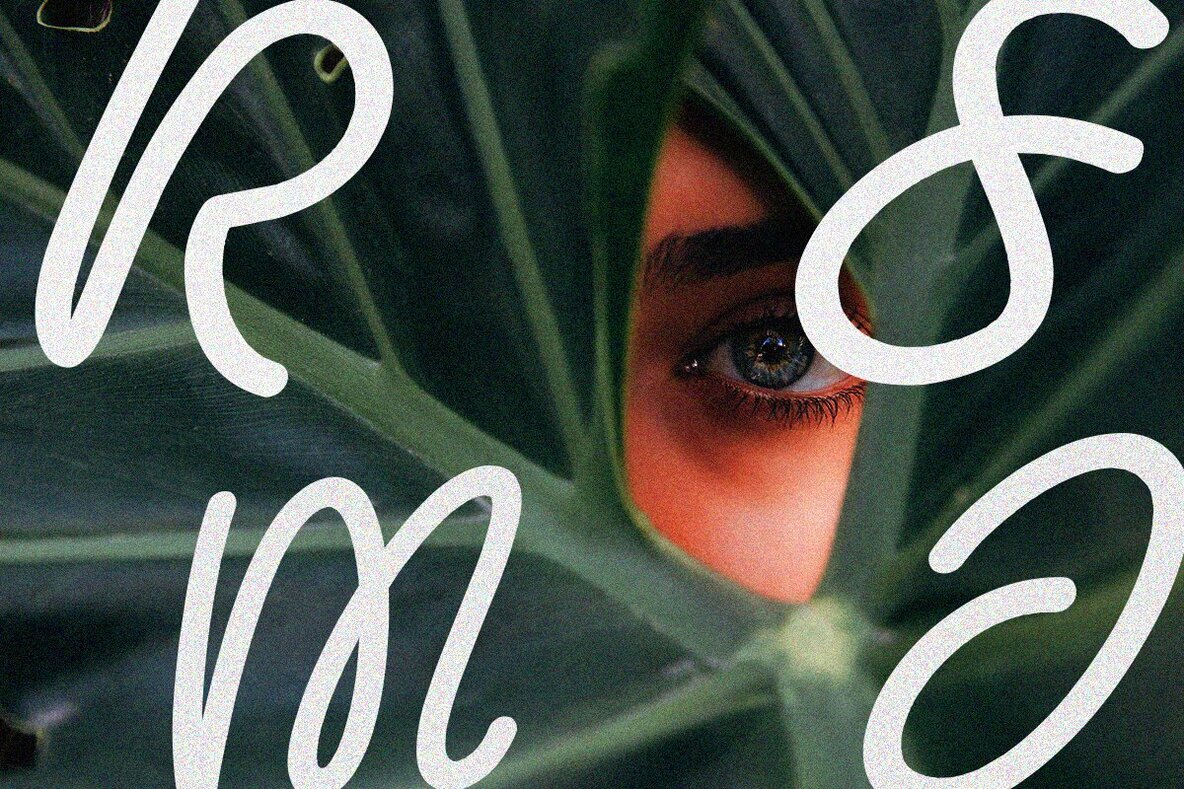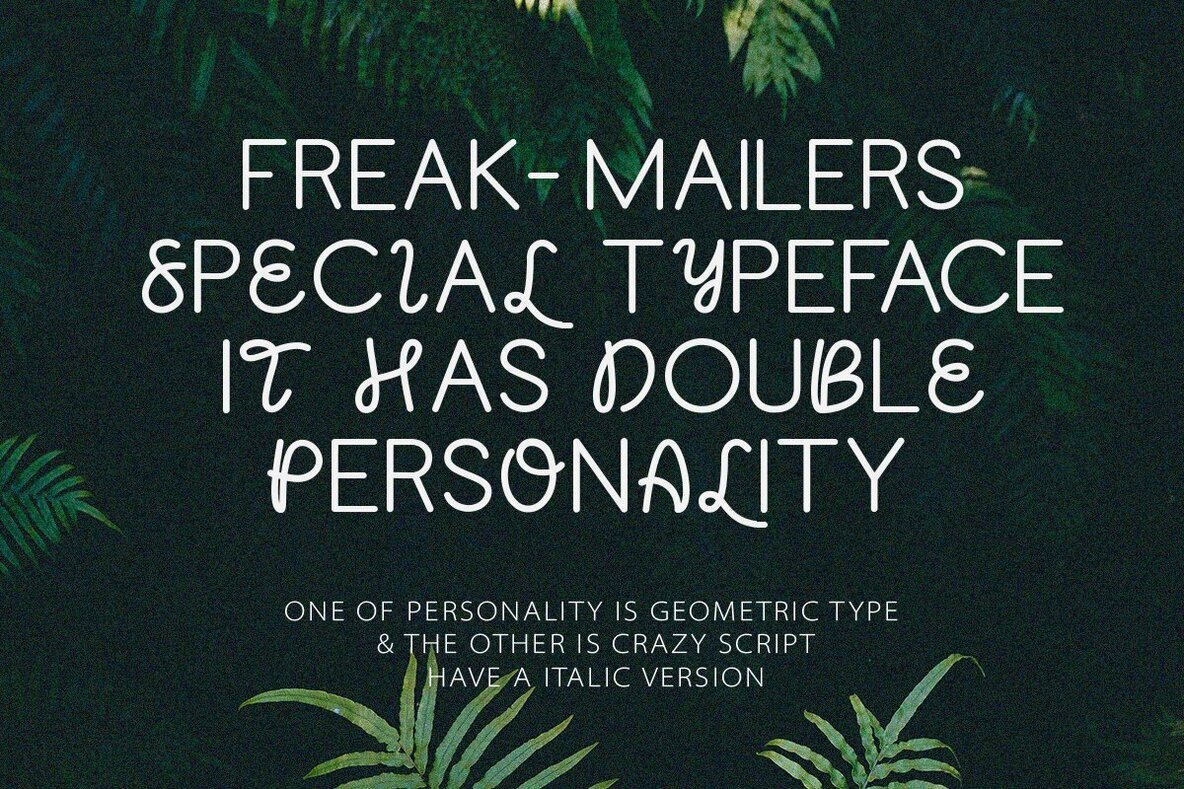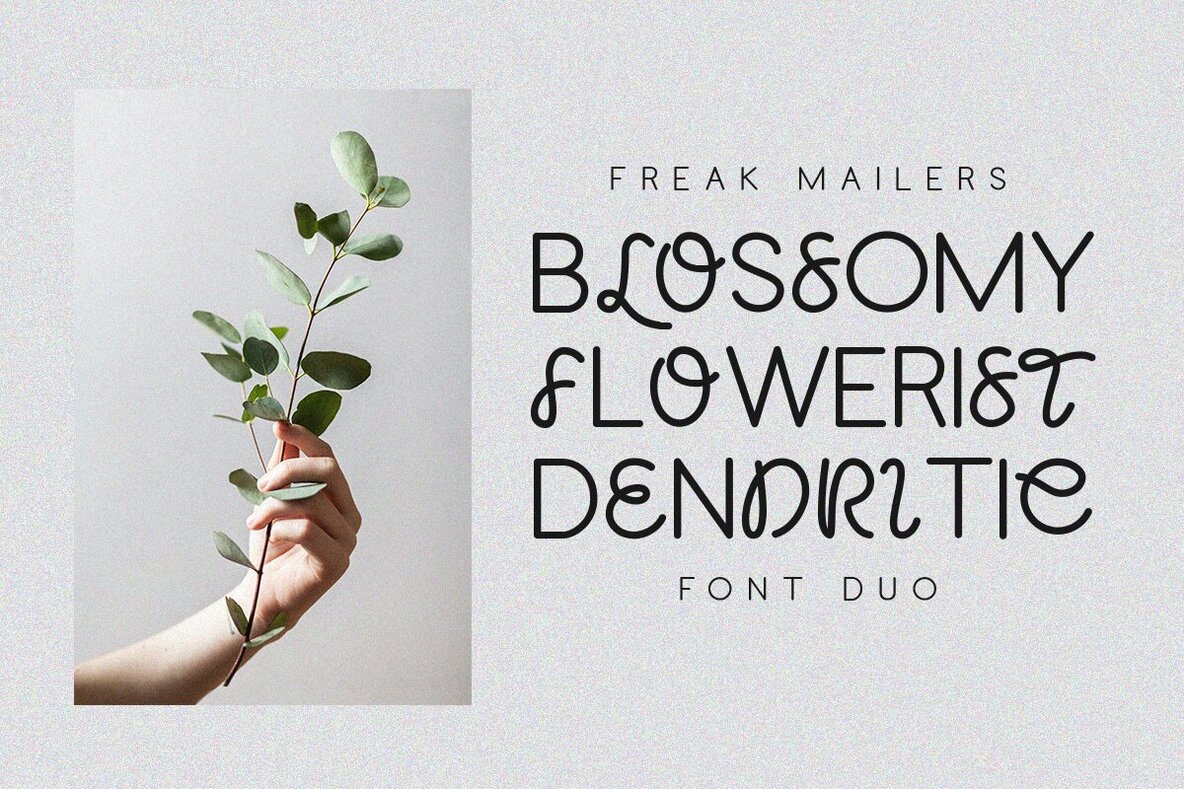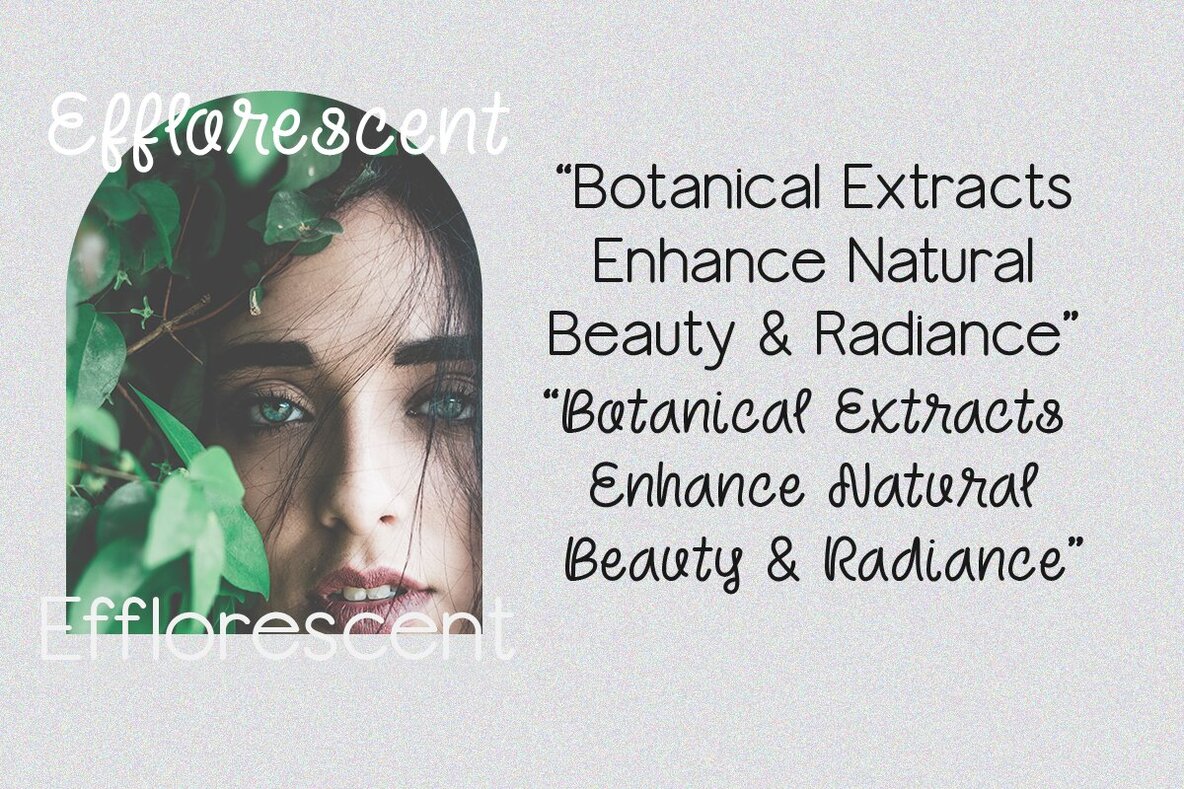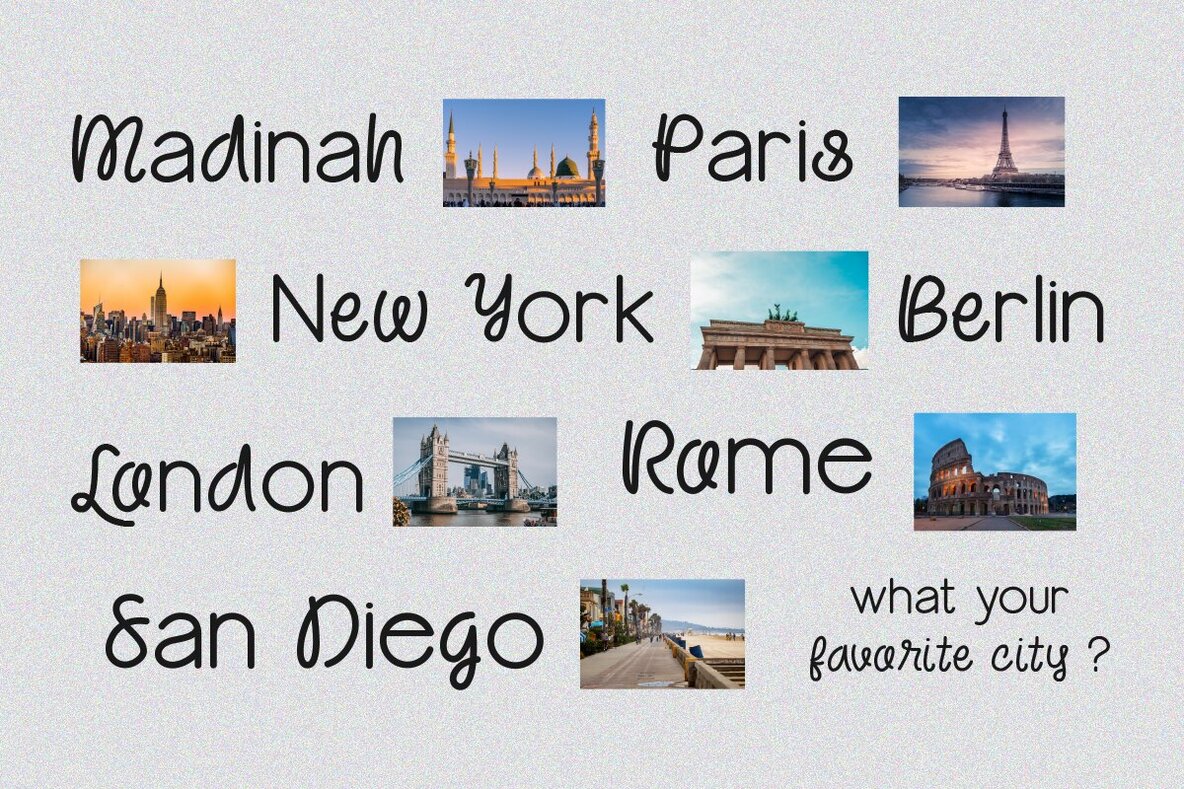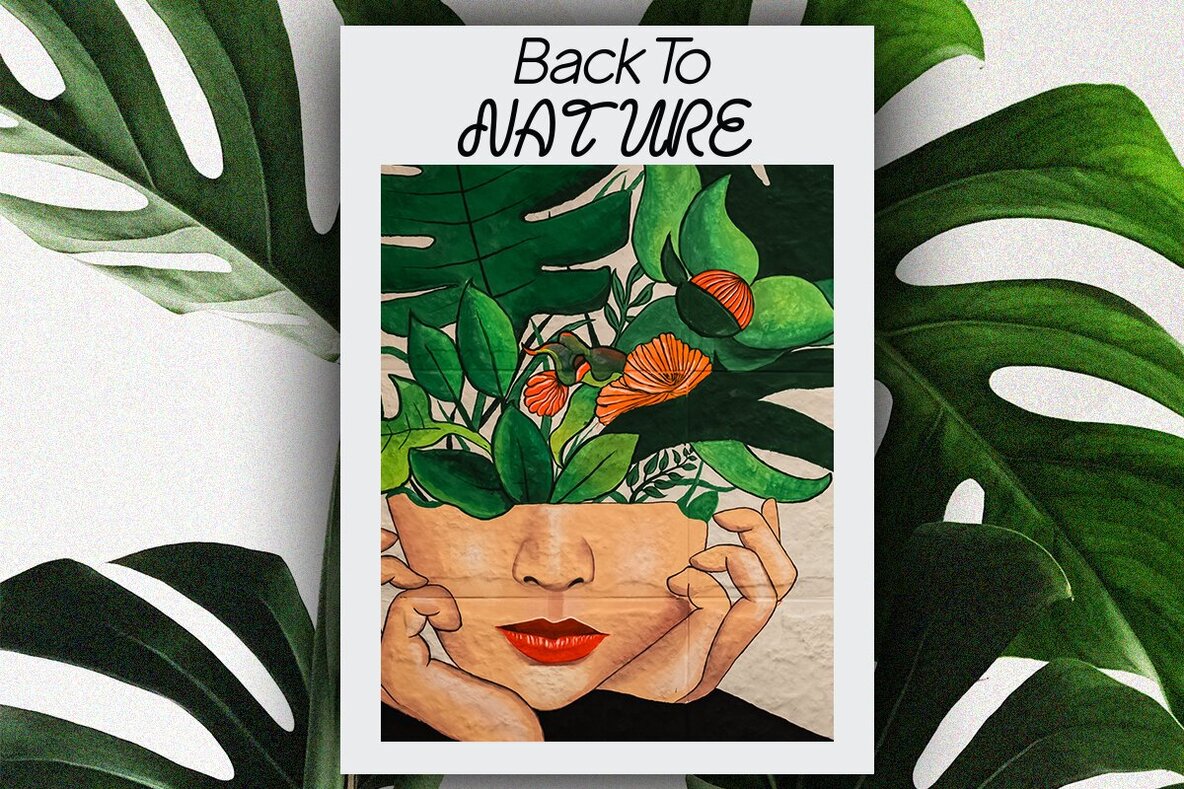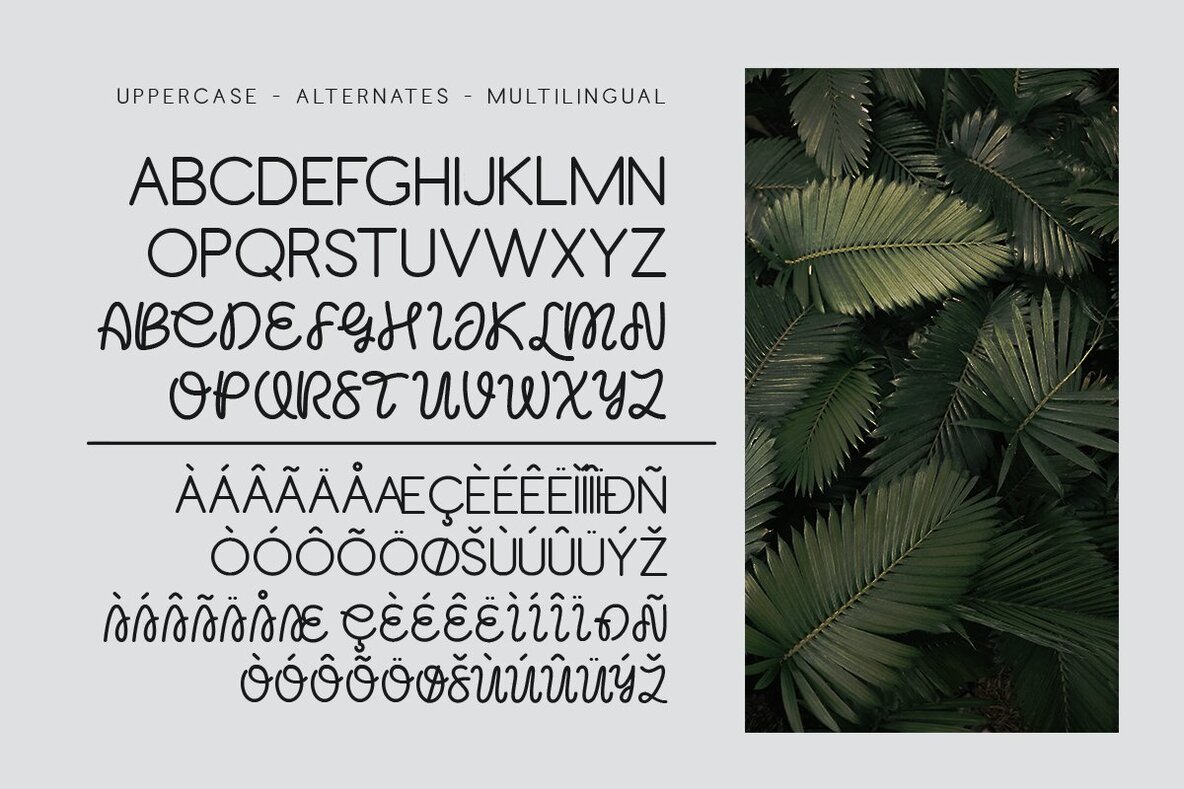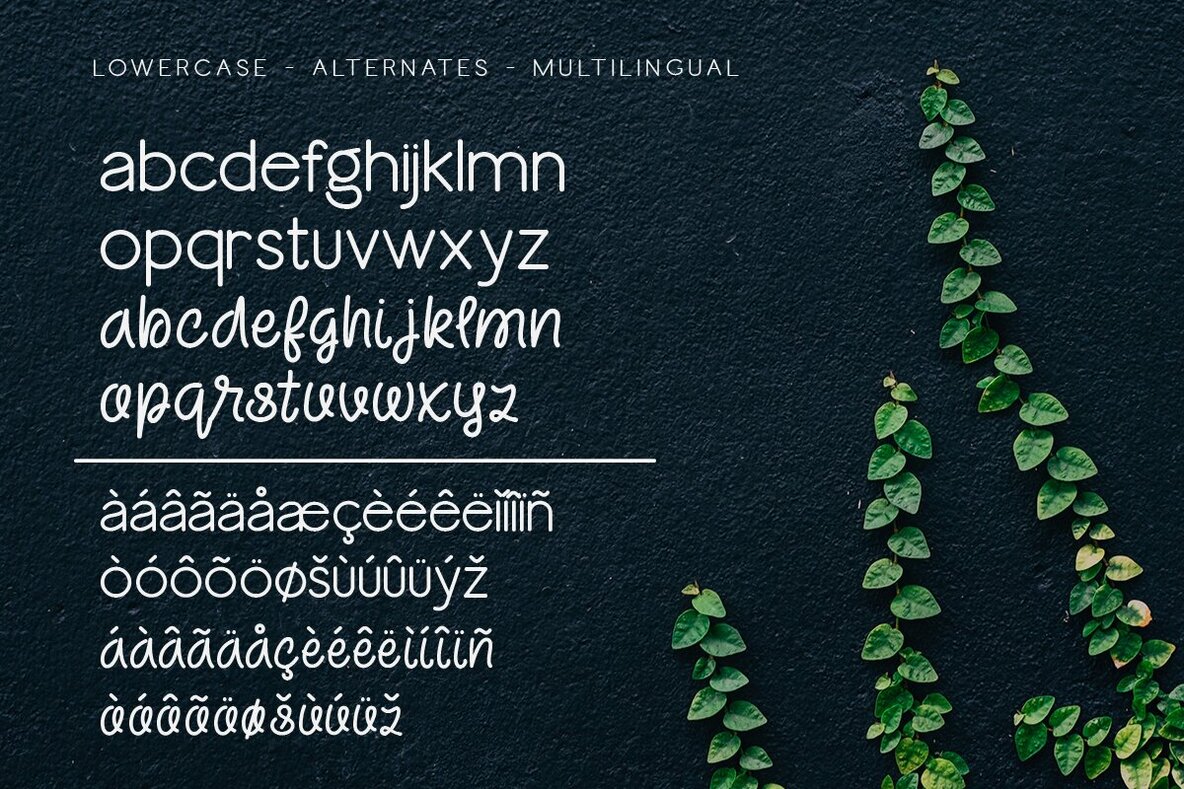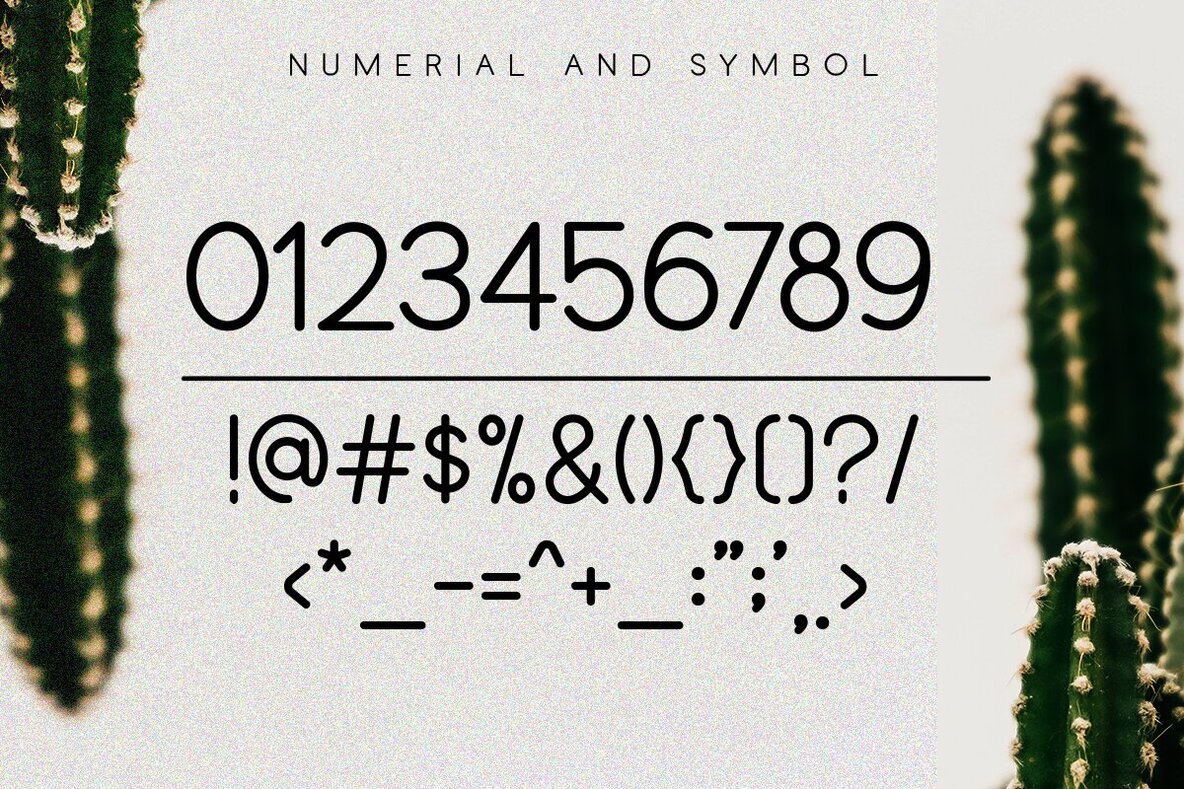
Freak Mailers Font
Freak Mailers offers a distinctive rounded font duo, combining a sans serif typeface with a vibrant script style. This pairing results in a truly unique and eye-catching aesthetic. The clean, classic lines of Freak Mailers, coupled with its expressive script style, make it perfect for a variety of projects. Use this font for designing logos, creating headlines, or enhancing covers for books and magazines.Freak Mailers: Unique Rounded Font Duo
Versatile Design